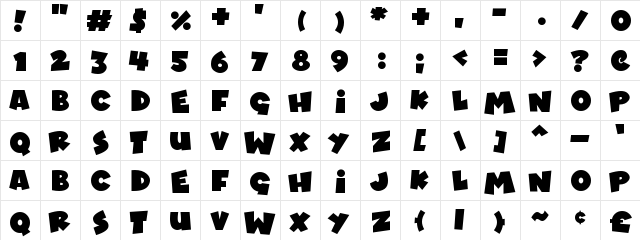
Lovely Madness Regular Font Preview
Lovely Madness Regular
Design Context for Lovely Madness Typeface
Lovely Madness is a composed and adaptable typeface that performs quietly and consistently across a wide range of design contexts.
Pro Tip: Use Lovely Madness in both headline and body roles to test its range before committing to a single application.